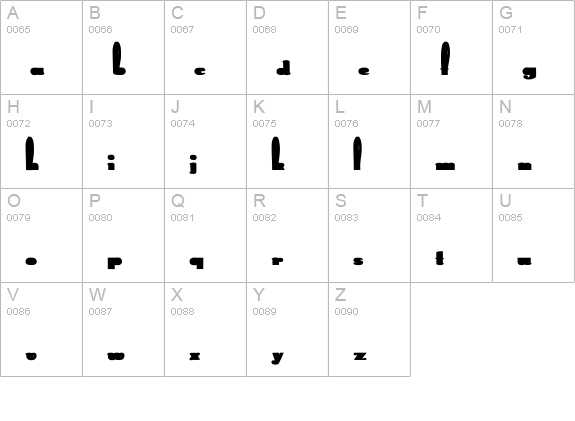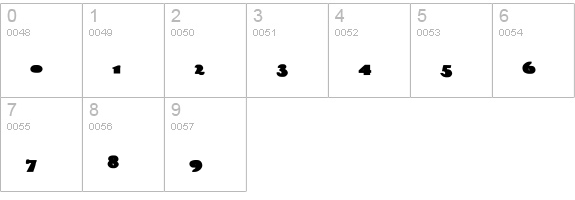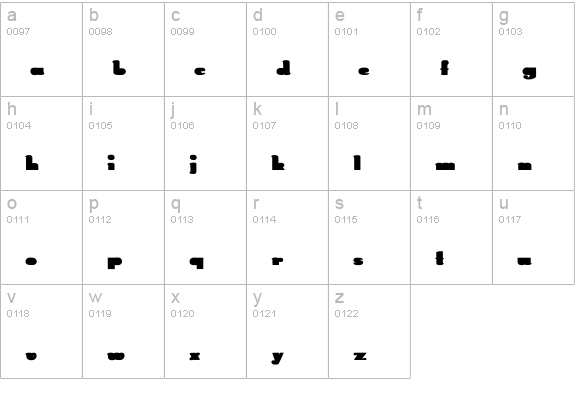
Rabbit Bold Font Details
Rabbit Bold is a strong, high-contrast variant in the Rabbit typeface family \xE2\x80\x94 well suited to headlines, attention-grabbing titles, and strong calls-to-action.
Rabbit Bold font is a stunning display font that commands attention with its bold and confident appearance. Its charismatic curves and strong lines make it a perfect choice for attention-grabbing headlines, logos, and posters. This unique font showcases a perfect balance between elegance and playfulness, making it suitable for a wide range of creative projects. Whether you're designing a magazine cover, a product packaging, or a website header, Rabbit Bold font will add a touch of modern sophistication that will instantly captivate your audience. One of the most exciting aspects of Rabbit Bold font is that it is freely available to download at FontsMarket.com. This means that you can easily access this exceptional font without any cost, making it an excellent choice for designers on a budget. With its versatility and affordability, Rabbit Bold font allows you to elevate your designs without compromising quality. With its generous character set and support for multiple languages, Rabbit Bold font offers endless possibilities for designers to express their creativity. The clean and smooth lines of this font make it highly legible even at smaller sizes, ensuring that your message will be clearly communicated to your audience. Whether you're a professional designer or someone who simply wants to add a touch of elegance to their personal projects, Rabbit Bold font is a must-have in your font library. Its bold and free-spirited nature will inject a sense of energy and excitement into your designs, making them truly stand out from the crowd. So why wait? Visit FontsMarket.com today and download Rabbit Bold font for free to unlock the full potential of your creative endeavors.